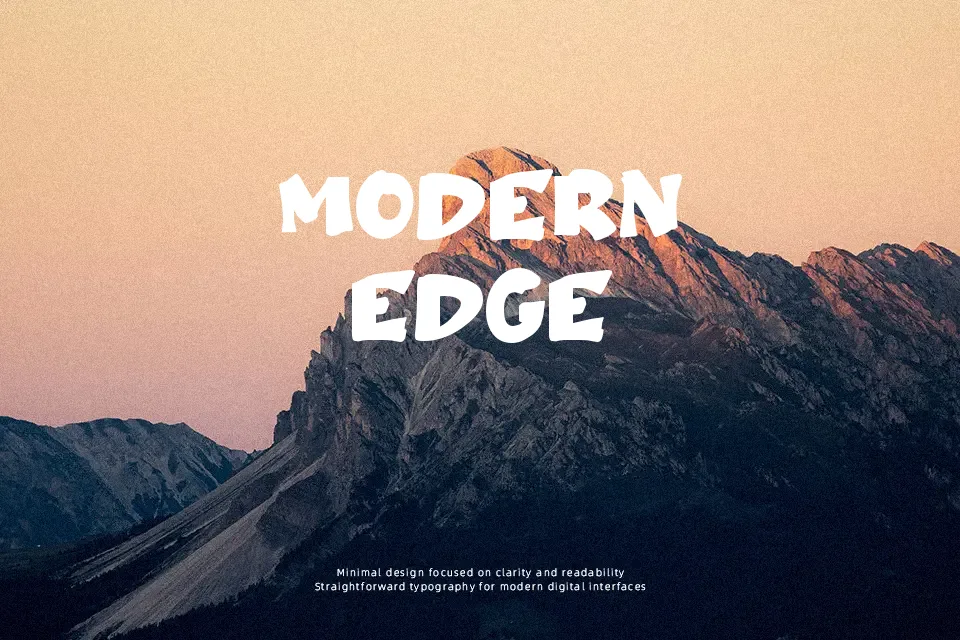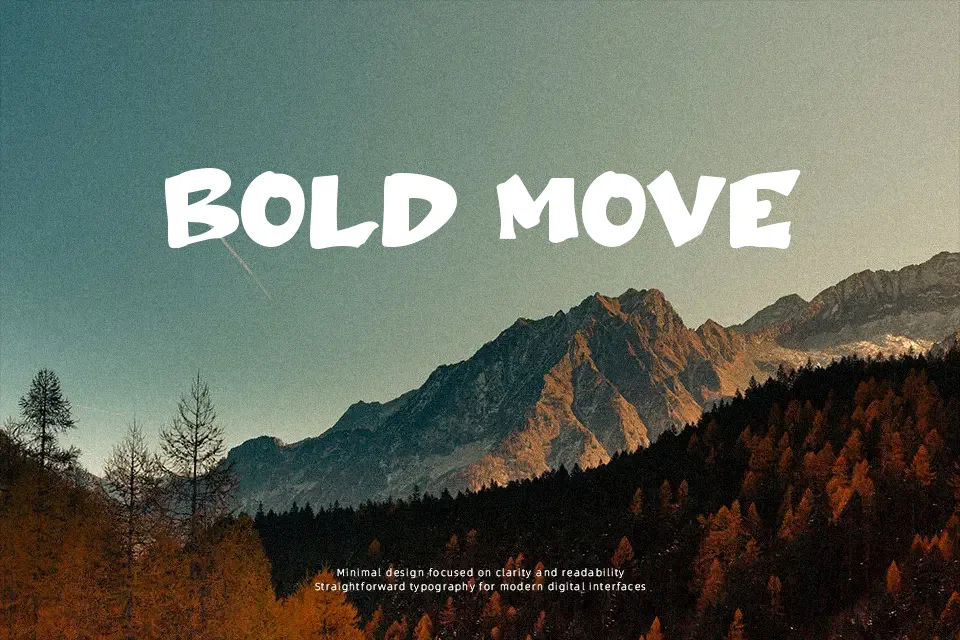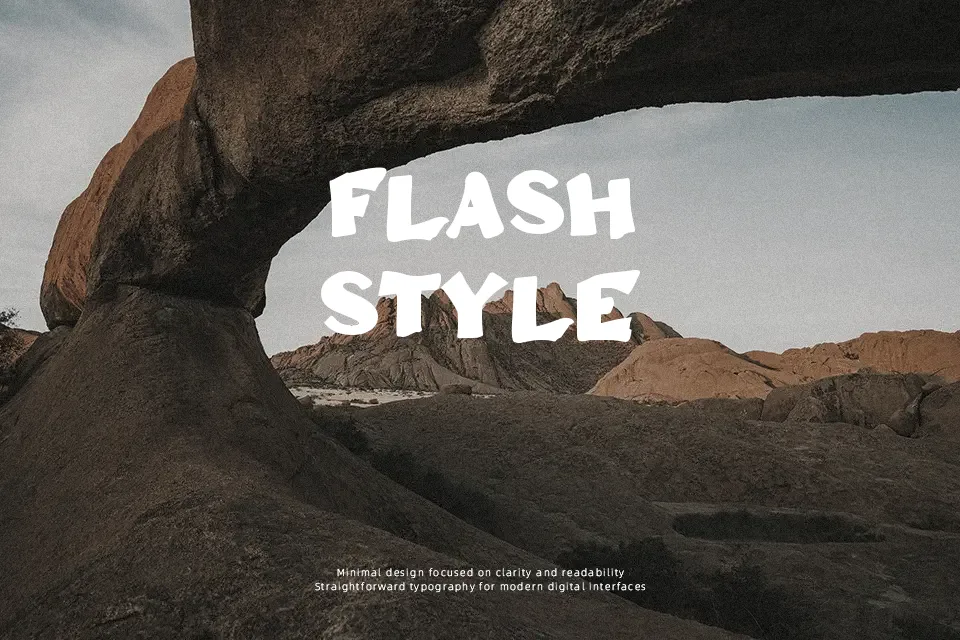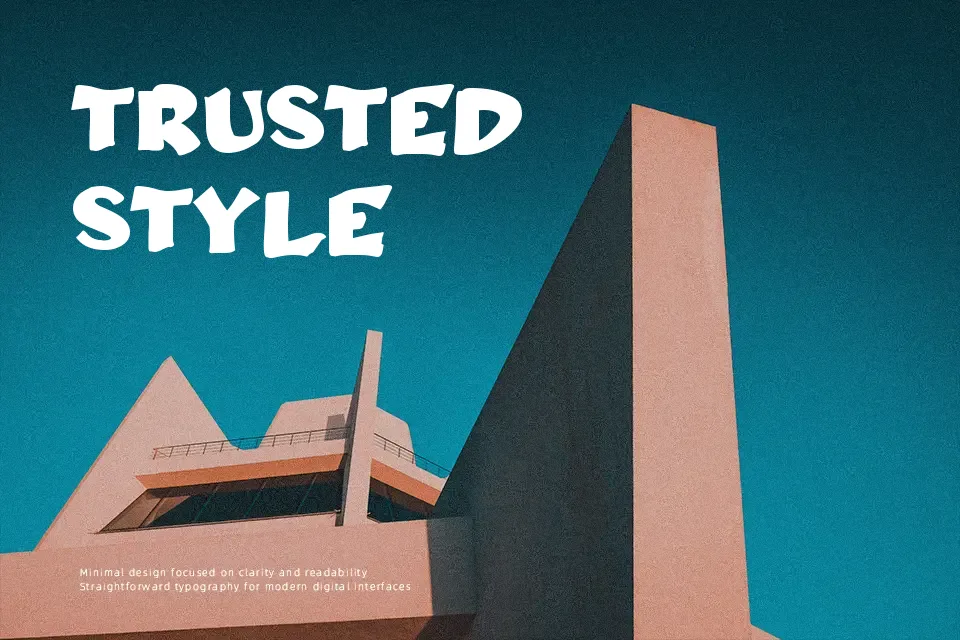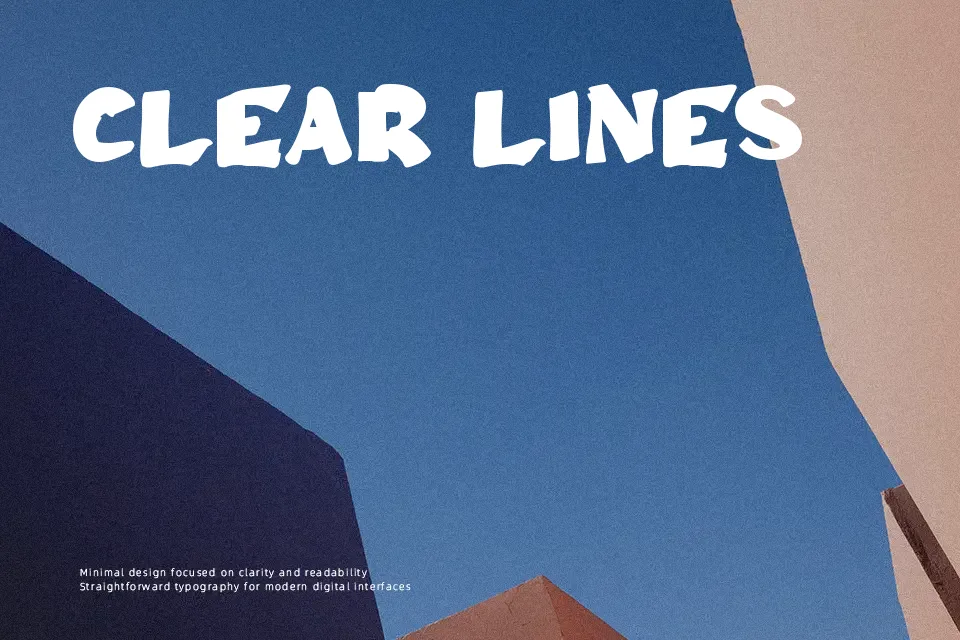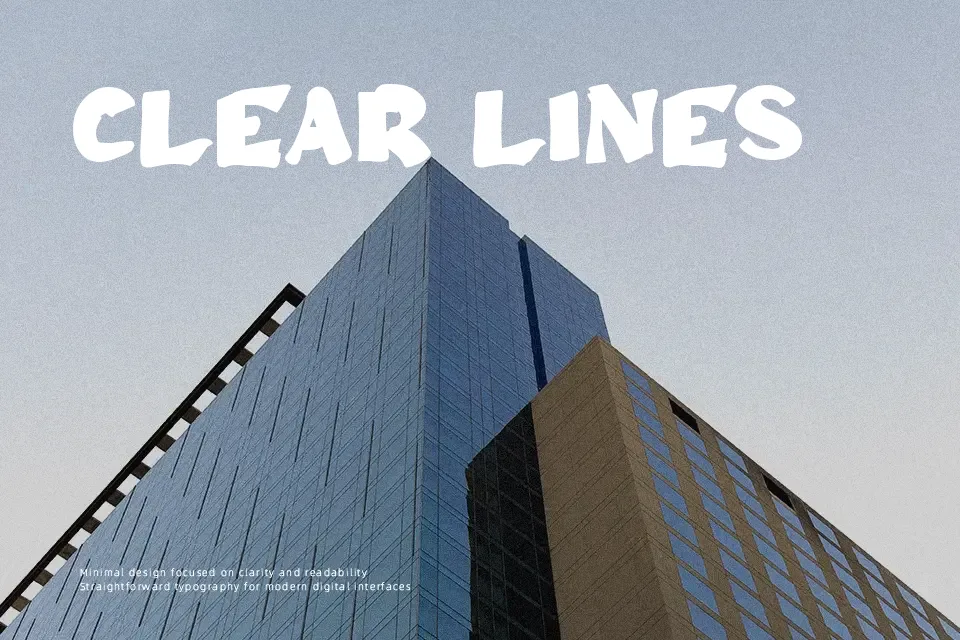
A Ampun Bang Font
Designed by Wahyu Eka Prasetya
A Ampun Bang is a bold, expressive display font built around comic and cartoon-inspired letterforms. Each character features thick, rounded strokes with an informal, hand-crafted quality that gives the typeface a lively and energetic presence. The letters are generously weighted and well-spaced, ensuring strong visual impact at large display sizes. Its playful structure leans casual rather than formal, making it well-suited for headline copy, event posters, social media graphics, product branding, and logo designs targeting youthful or creative audiences. The typeface carries a consistent personality throughout its character set, delivering a fun, friendly tone without sacrificing legibility — a reliable choice for designers seeking bold personality in display contexts.
Perfect for branding, headline, and logo, with a bold and cartoon style.